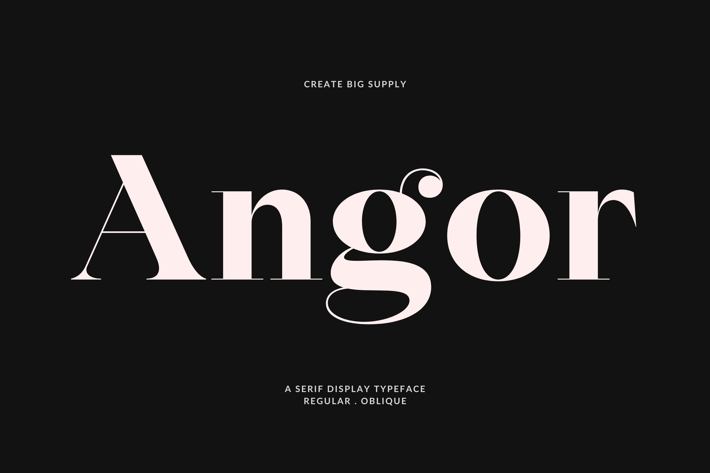
Modern Elegant Display Serif Typeface for Fashion
Angor is an elegant display serif typeface that brings classic sophistication to modern design. With its high contrast strokes and distinctive serifs, Angor is perfect for luxury branding, magazine headers, invitations, and upscale packaging.
Its timeless charm ensures strong visual impact while maintaining graceful readability.
Key Features:
- Elegant serif with refined aesthetics
- Designed for editorial and branding use
- High contrast strokes with classic structure
- Perfect for luxury, fashion, and print design
- Uppercase & lowercase letters
- Numerals and punctuation
Elevate your design with the timeless elegance of Angor.